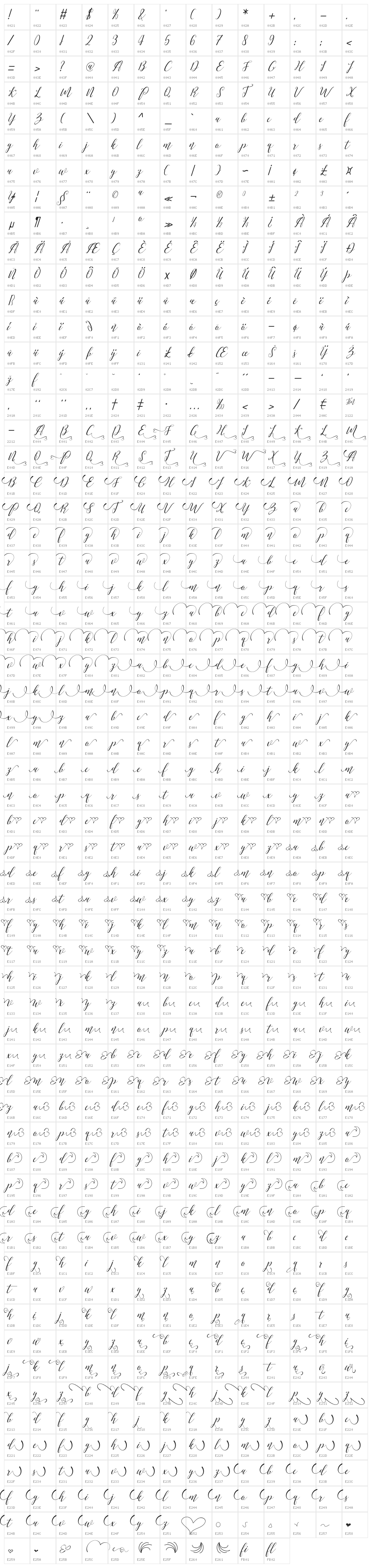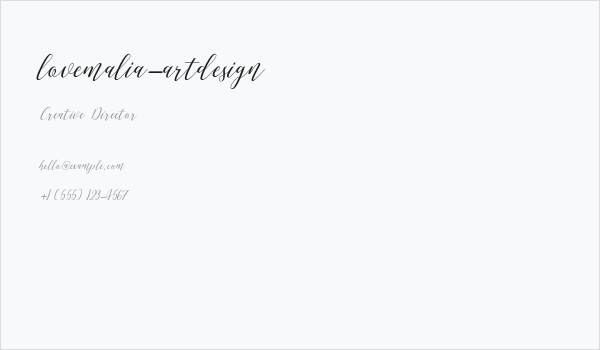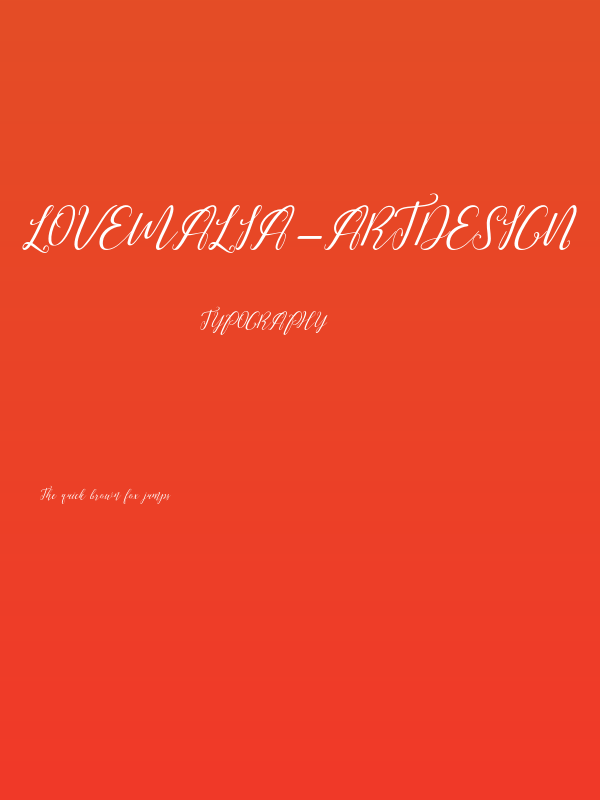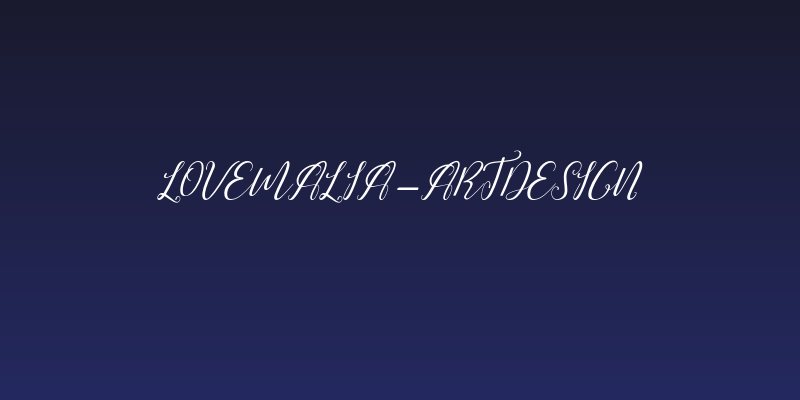
lovemalia-artdesign Font
lovemalia-artdesign Description
This font features an elegant and flowing script style, characterized by its smooth, cursive letterforms and graceful loops. The uppercase letters are particularly ornate, with sweeping ascenders and descenders that add a sense of movement and sophistication. The lowercase letters maintain a consistent style, with a slightly more restrained flourish, making them highly readable while still retaining the decorative essence. The numerals and special characters are designed to complement the overall aesthetic, ensuring a cohesive look across all text elements. This font is perfect for projects that require a touch of elegance and refinement.
| Overall Style | Elegant, Decorative |
| Use Case | Logos, Invitations, Headlines |
| Proposed Projects | Ideal for wedding invitations, elegant branding, greeting cards, and upscale packaging. |